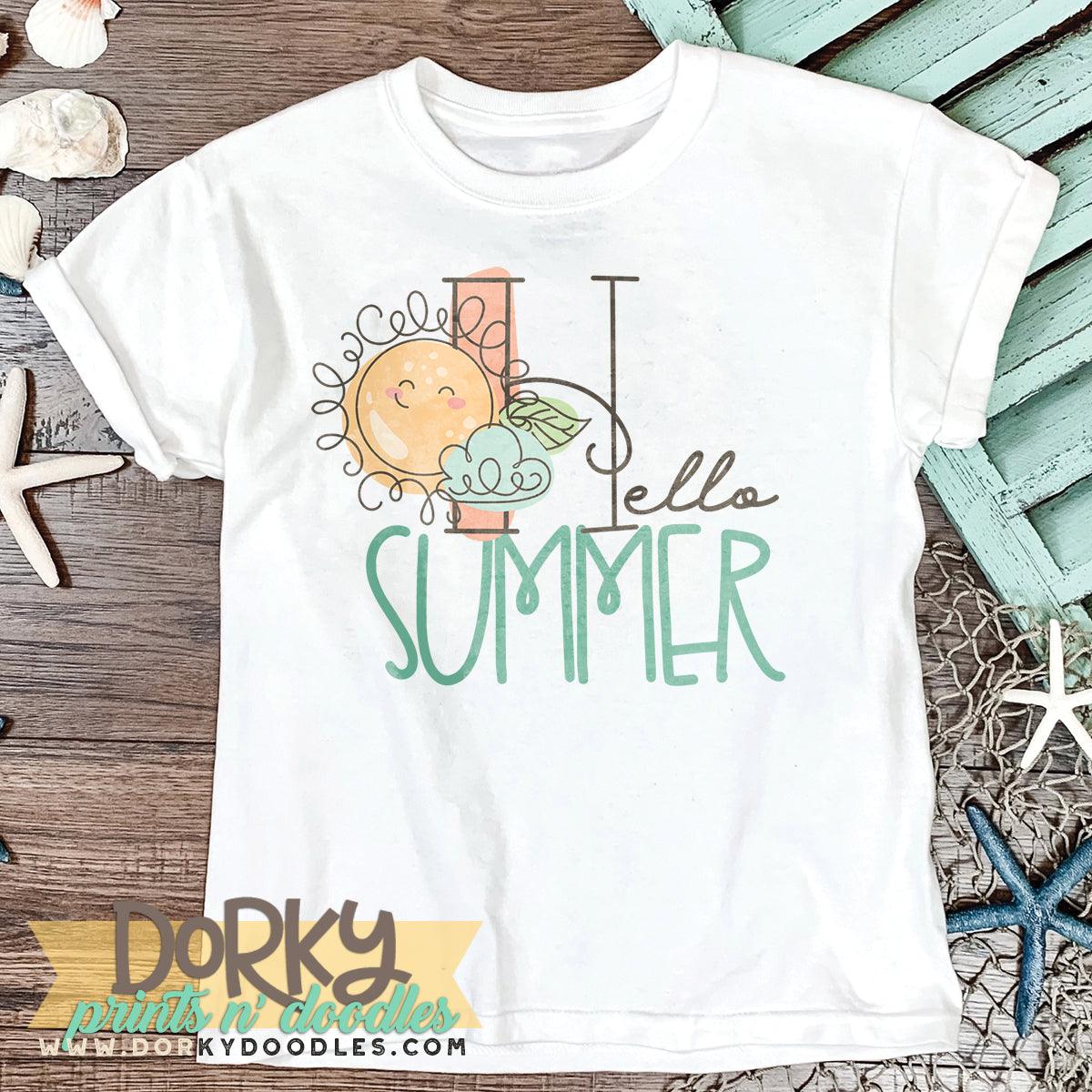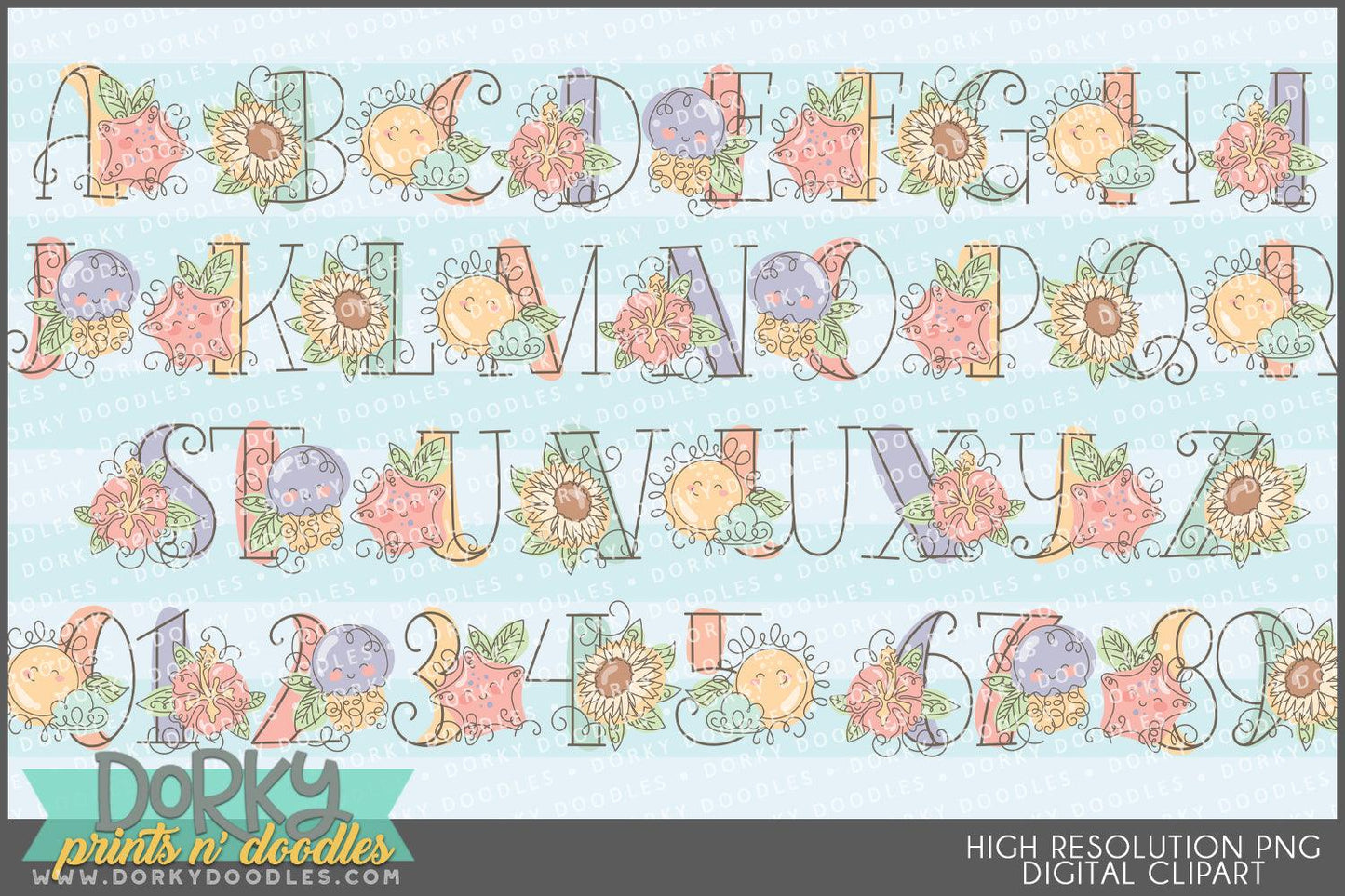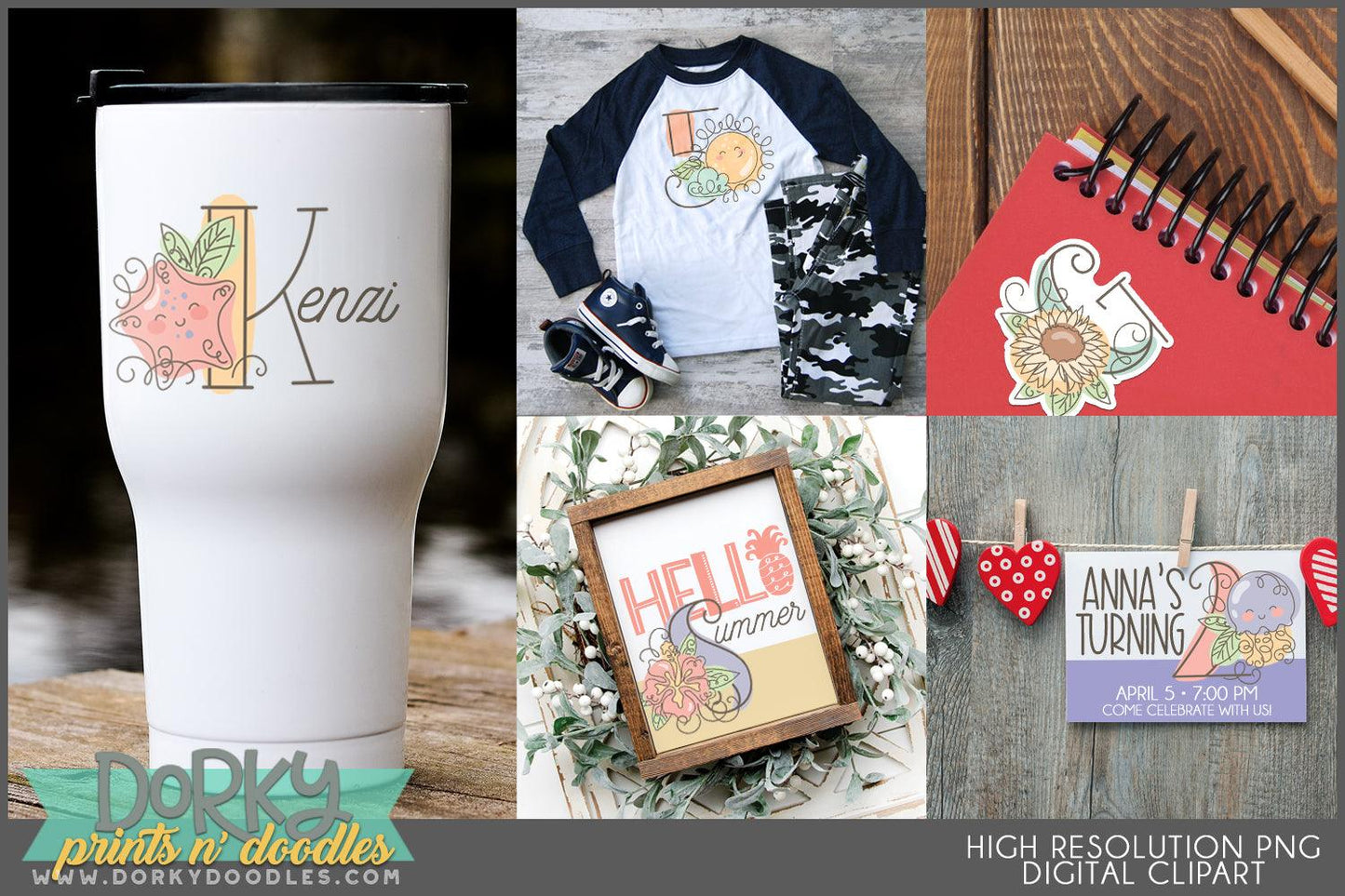
Sketchy Summer Alphabet Clipart
Looking to add a fun spark to your projects? What could be better than these cute and sketchy summer letter and number clipart images and frames? Perfect for your party invitations, cookies, stickers, sublimation, planners, scrapbooking projects and more! You will get 36 Digital Clip Art images in high resolution PNG format (they come as a ZIP file that you can download instantly once payment has cleared).
• the full alphabet and the numbers 0-9 featuring starfish, sunflowers, jellyfish, sunshine, and More